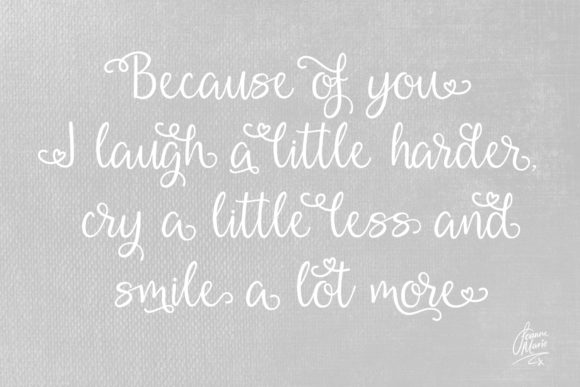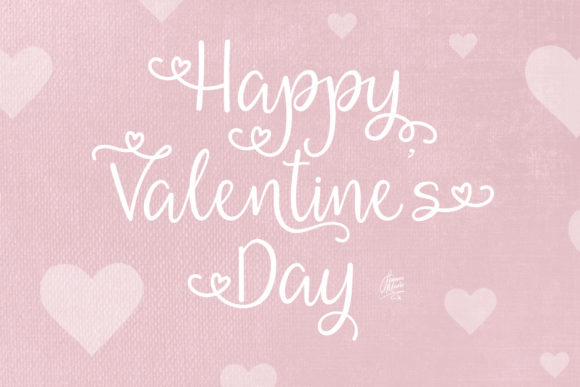
Forever Love Font
db-ku.com - Script & Handwritten -- Forever Loved is a delightful handwriting font which is suitable for every occasion. This wonderful script font is perfect for wedding stationery, engagements, and baby, family and friends orientated themes. Not only that – it can be used for logos, tattoos, delicious food and drink, mugs, clothing, the list is endless!`